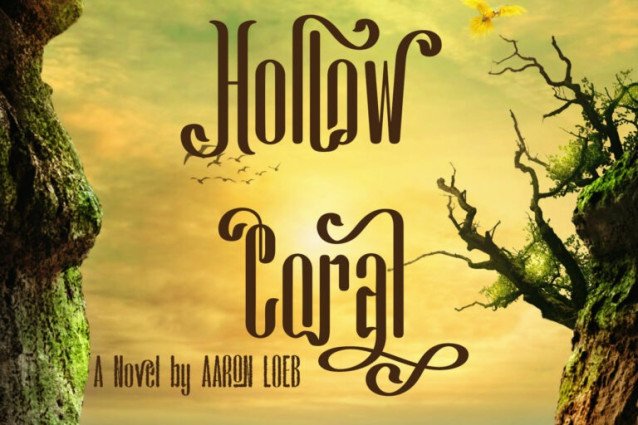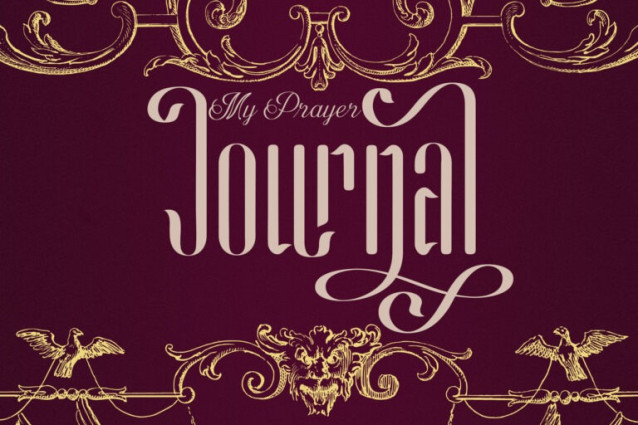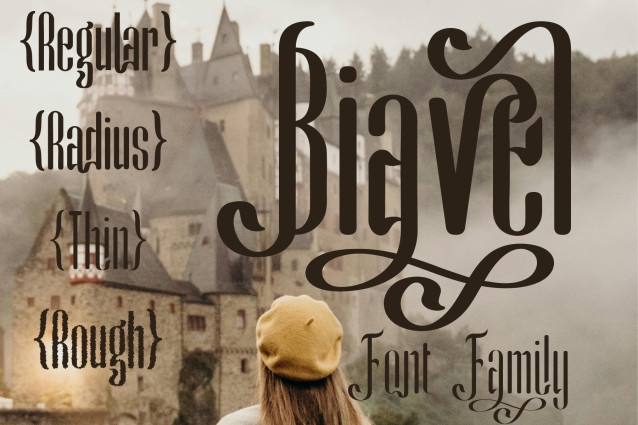
Biavel Font
Biavel Font is a decorative typeface inspired by classical lettering and traditional European craftsmanship. Featuring elegant curves, refined serifs, and expressive ornamental details, Biavel evokes a sense of timeless beauty, romance, and artistic depth.
The Biavel Font Family includes multiple styles such as Thin, Regular, Radius, and Rough, offering versatility for a wide range of design needs — from clean and elegant compositions to bold, handcrafted visuals. Biavel is ideal for logos, headlines, posters, book covers, packaging, fashion branding, and vintage or cinematic-themed projects.